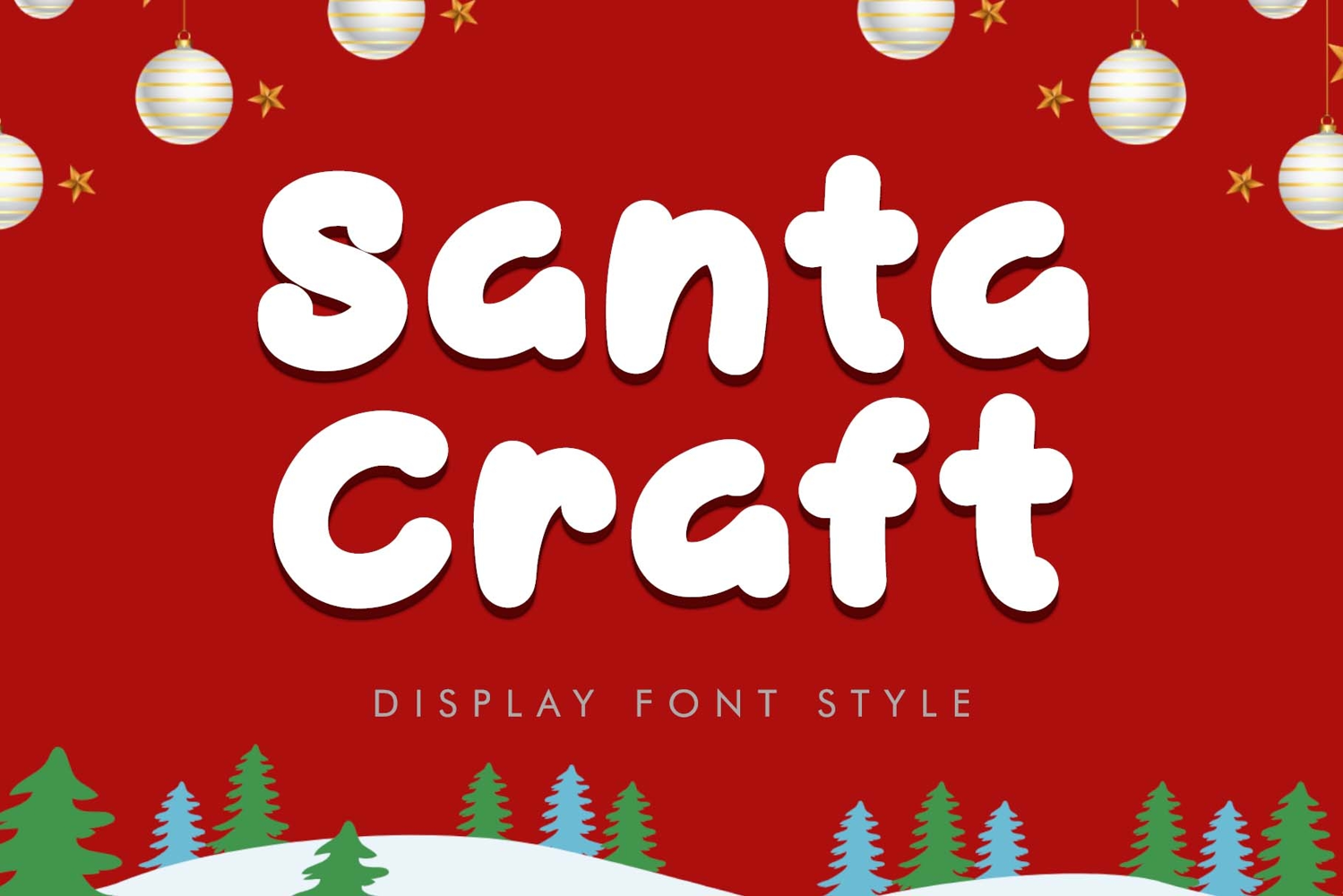
"Santa Craft" is a unique and cute display font. It features uppercase and lowercase letters, numerals, punctuations, and multilingual support. It's perfect for Christmas, winter, gifts, invitations, festivals, logos, stickers, Halloween, comics, branding, banners, spring, summer, Easter, t-shirts, mockups, social media, business branding, and more.